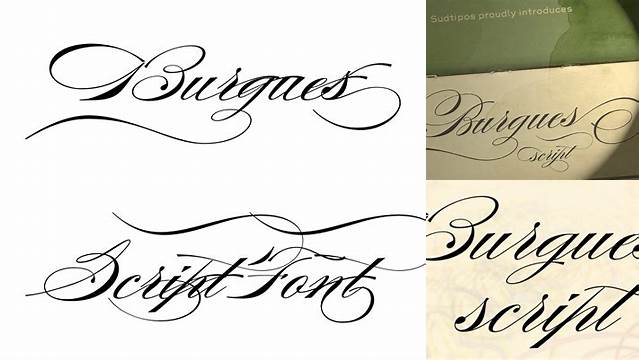
Hey guys! Ever been mesmerized by those elegant, flowing scripts that seem to dance across the page? Chances are, you've stumbled upon something similar to the Burgues Script font. Its timeless appeal and sophisticated curves make it a favorite for designers and creatives alike. But what if you could generate your own, for free? Let's dive in and explore the world of Burgues Script, its origins, and how you can get your hands on a free generator (and maybe even download the font itself!).
What is Burgues Script Font?
Burgues Script is a stunning calligraphy-style typeface known for its elaborate swirls, delicate strokes, and overall vintage charm. It's the kind of font that instantly adds a touch of class to any project. Think wedding invitations, logos, elegant branding, and even personalized gifts. The original Burgues Script was meticulously crafted by hand, making it a true work of art. But what makes it so darn special, you ask?
The History and Origin of Burgues Script
The Burgues Script font family has a rich history rooted in the art of calligraphy. Its elegant design and flowing strokes draw inspiration from traditional script styles, making it a popular choice for projects that require a touch of sophistication. Exploring the history of Burgues Script allows designers to appreciate the craftsmanship and artistic vision behind this timeless typeface. The font has seen many interpretations and variations over the years, each adding its unique flair to the original design.
Key Characteristics of Burgues Script
So, what exactly makes Burgues Script so recognizable? Well, it's all about those signature characteristics! Think elaborate swashes, delicate hairlines, and a generally flowing, rhythmic feel. The letterforms are carefully designed to connect seamlessly, creating a sense of unity and elegance. The contrast between thick and thin strokes adds visual interest, making it stand out from simpler sans-serif fonts. These details contribute to the overall sophistication and beauty of the font.
Applications of Burgues Script Font